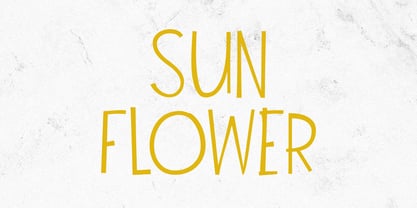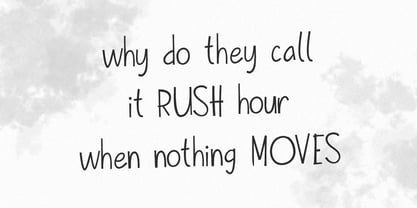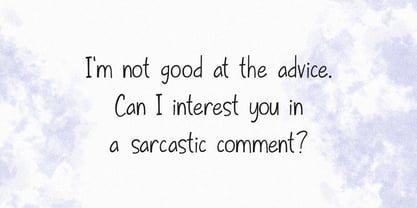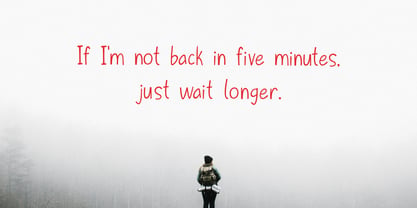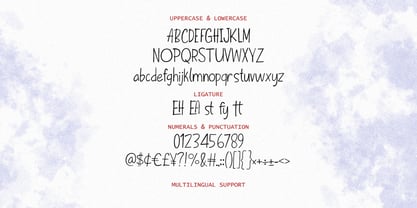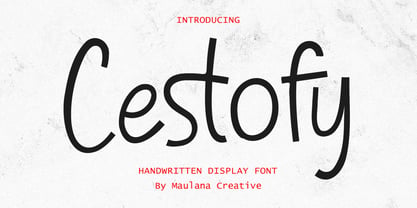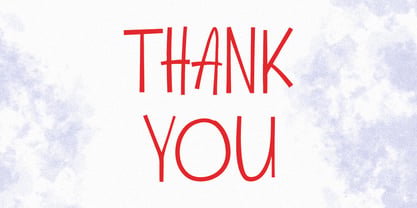
MC Cestofy
by Maulana Creative
The MC Cestofy Font Family was designed by Gilang Maulana and published by Maulana Creative. MC Cestofy contains 1 styles. More about this family
Cestofy is a expressive sans display handwritten font. With medium stroke, fun character with a bit of ligature. To give you an extra creative work. Cestofy font support multilingual more than 100+ language. This font is good for logo design, Social media, Movie Titles, Books Titles, a short text even a long text letter and good for your secondary text font with sans or serif. Make a stunning work with Cestofy font.
Designers: Gilang Maulana
Foundry: Maulana Creative